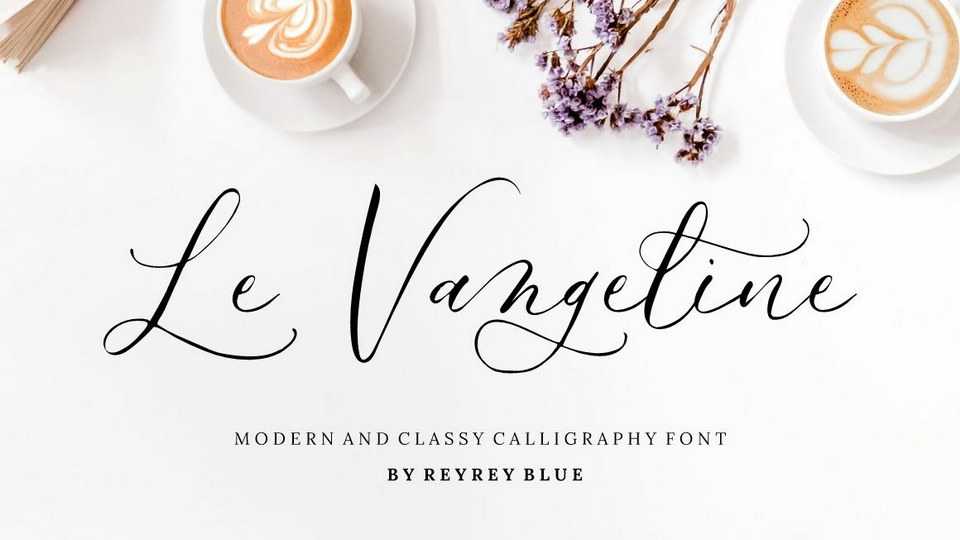
Download Le Vangeline font, a romantic calligraphy typeface with classic roots and an elegant touch. Le Vangeline is perfect for any project that need a beautiful handwriting taste.
Designer: Reyrey Blue